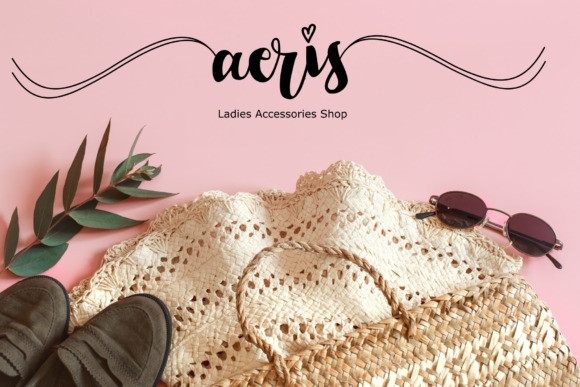
Girl Script Font is a magical and delicate handwritten font. It has a dainty flow, and as a result it will add a sweet touch to any design you wish to develop. This font is PUA encoded which means you can access all of the glyphs and swashes with ease!